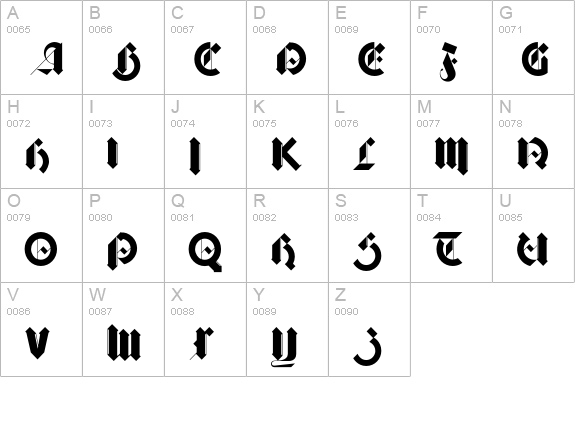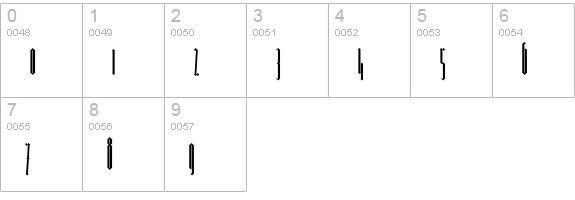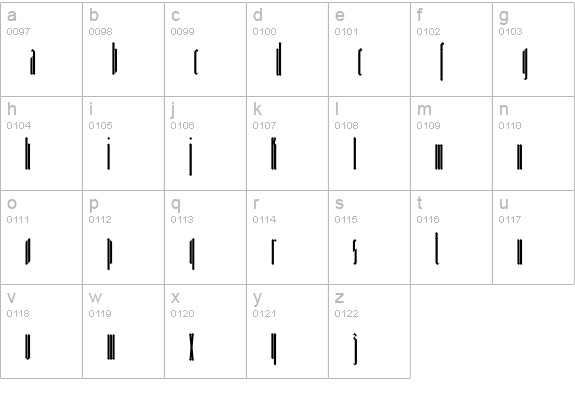
BarnbrookGothic Font Details
BarnbrookGothic is a striking and versatile font that exudes a timeless elegance with a modern twist. Its bold, clean lines and sharp angles make a bold statement, perfect for creating eye-catching designs. This font is ideal for logos, headlines, posters, and any project that requires a strong visual impact. What sets BarnbrookGothic apart is its unique blend of classic sophistication and contemporary flair. Whether you're going for a sleek and professional look or a edgy and avant-garde aesthetic, this font has got you covered. Its versatility allows you to experiment and play with different styles, making it a must-have for any designer's toolkit. The best part? BarnbrookGothic is completely free to download at FontsMarket.com. Yes, you read that right - you can get your hands on this stunning font without spending a dime. So why wait? Elevate your designs with BarnbrookGothic today and let your creativity shine.